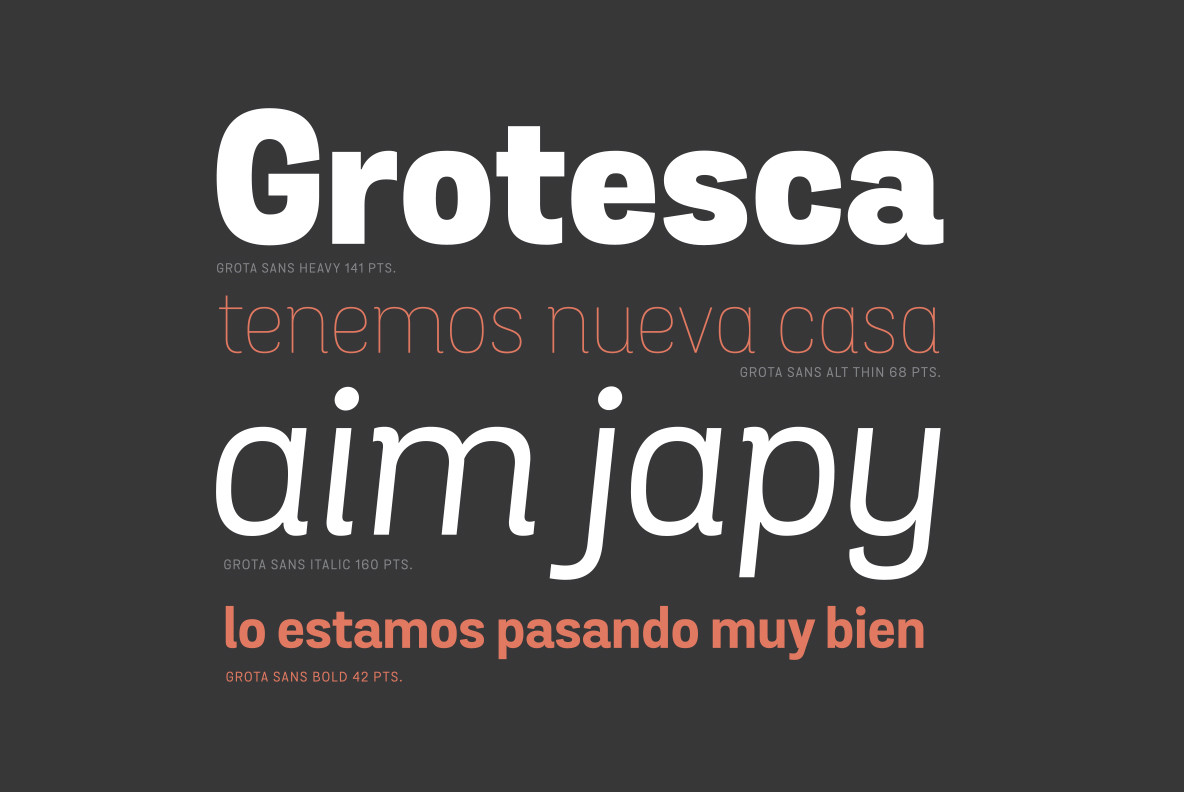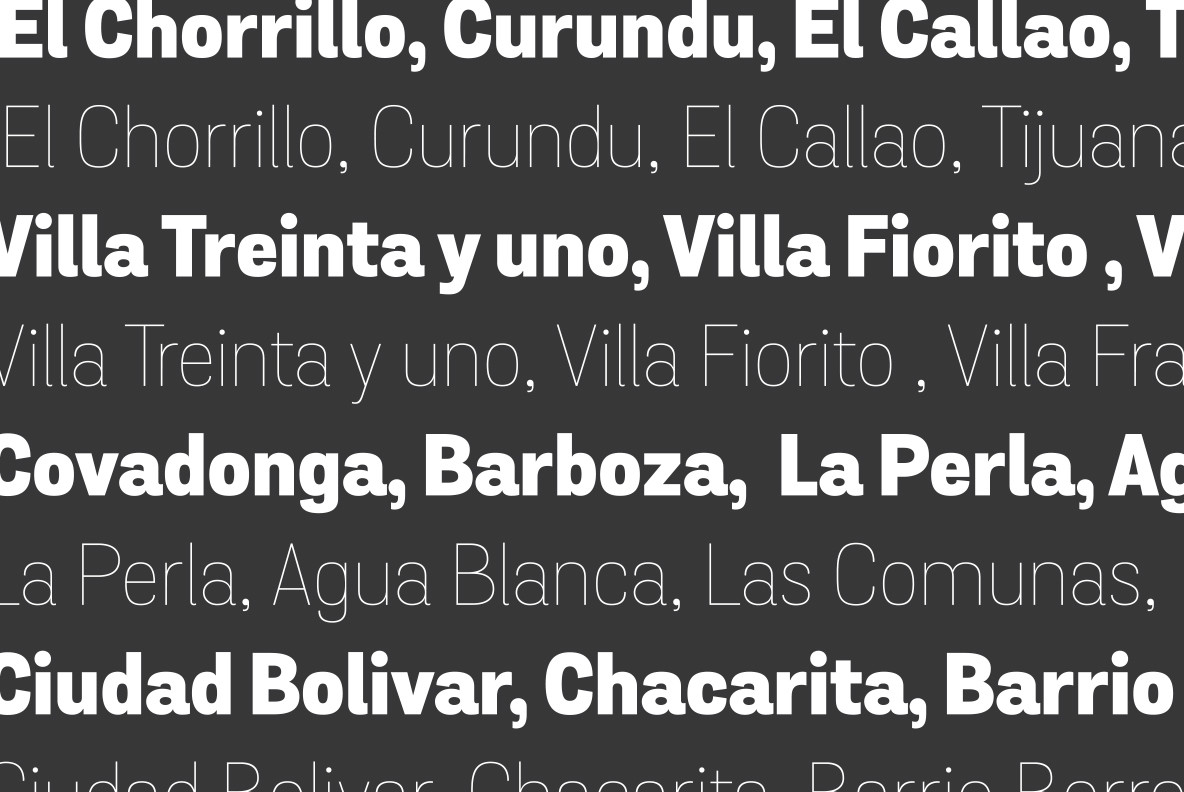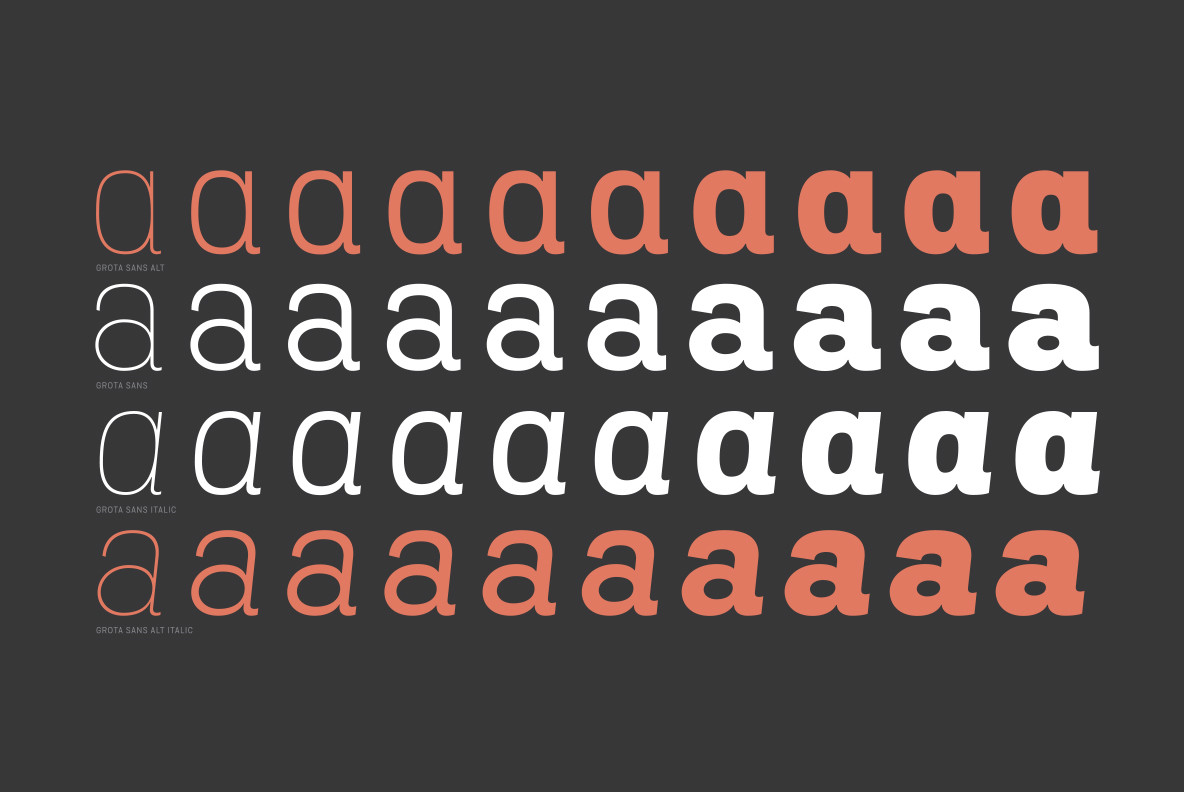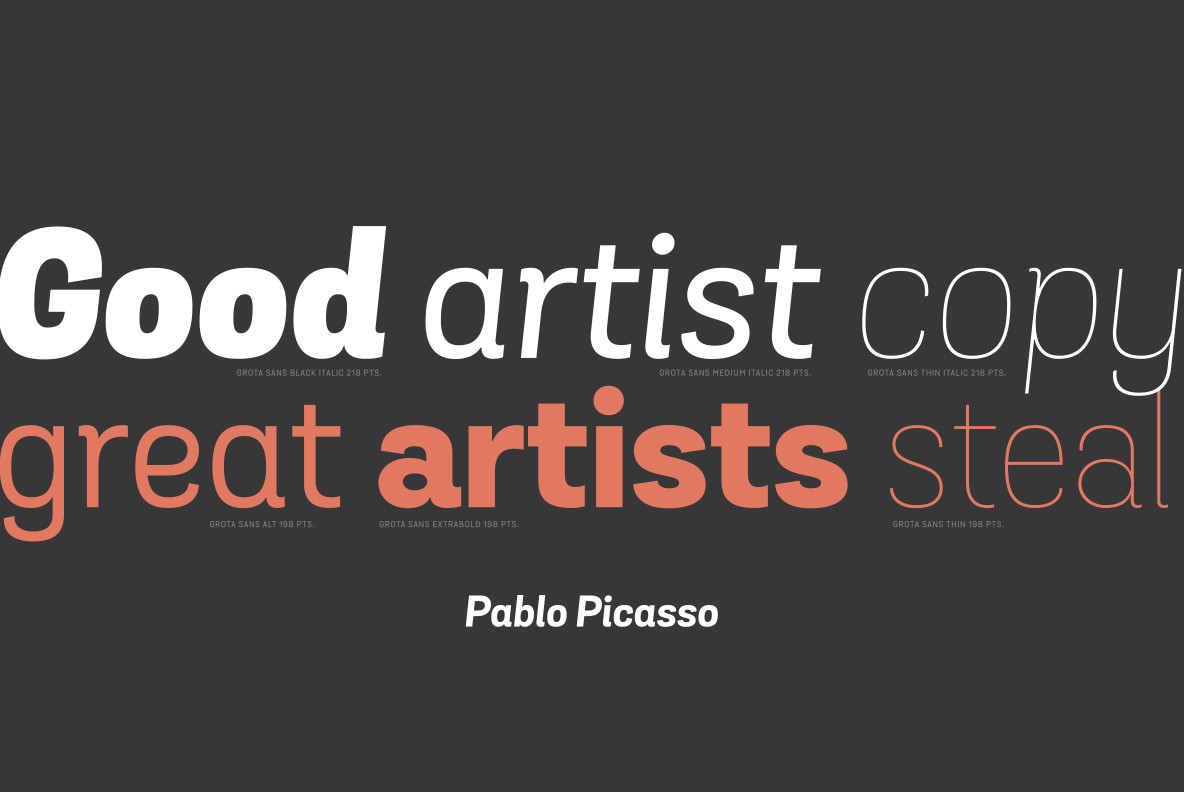
Grota Sans Font
Grota is back in its new Sans version, with a complete family of 40 fonts, 10 different weights and their respective cursives, and an alt version.
Grota Sans, designed by Eli Hernandez and Daniel Hernandez, is a grotesque font with a Latin spirit. This type comes to accompany Grota Unicase. It’s ideal for logos, brands, books, headlines, etc.